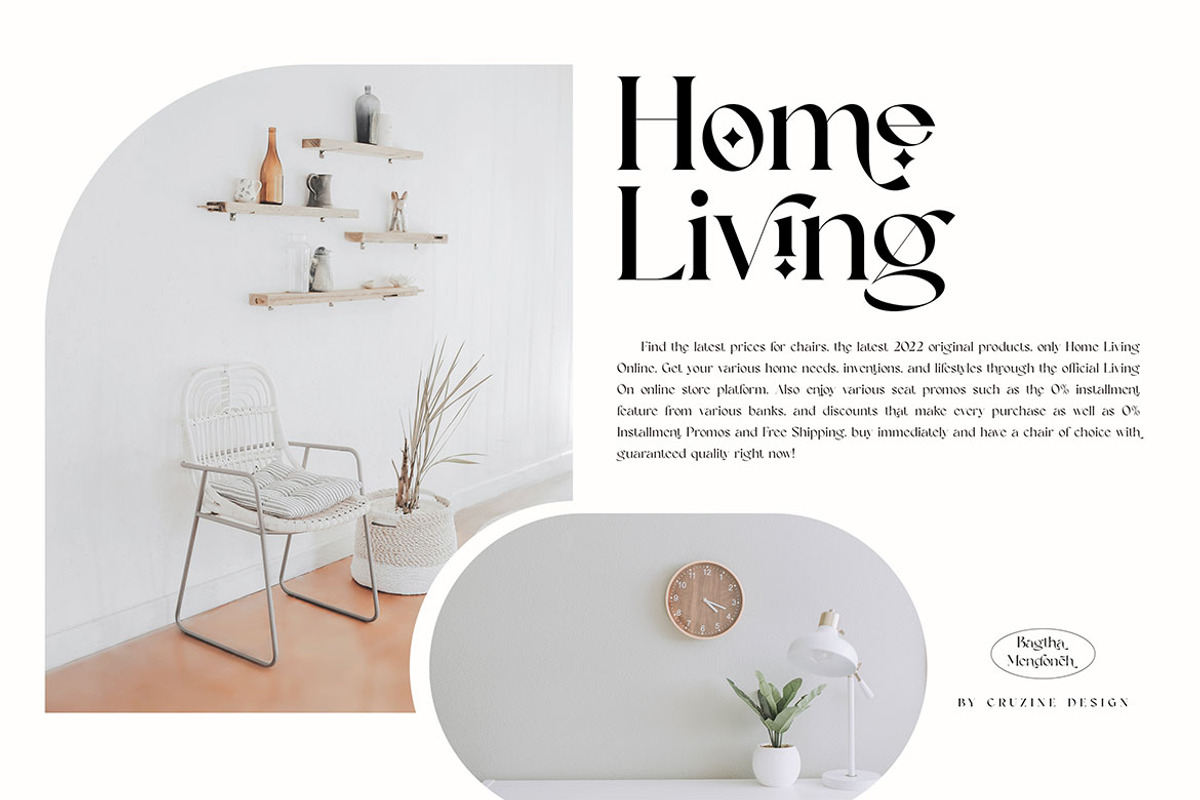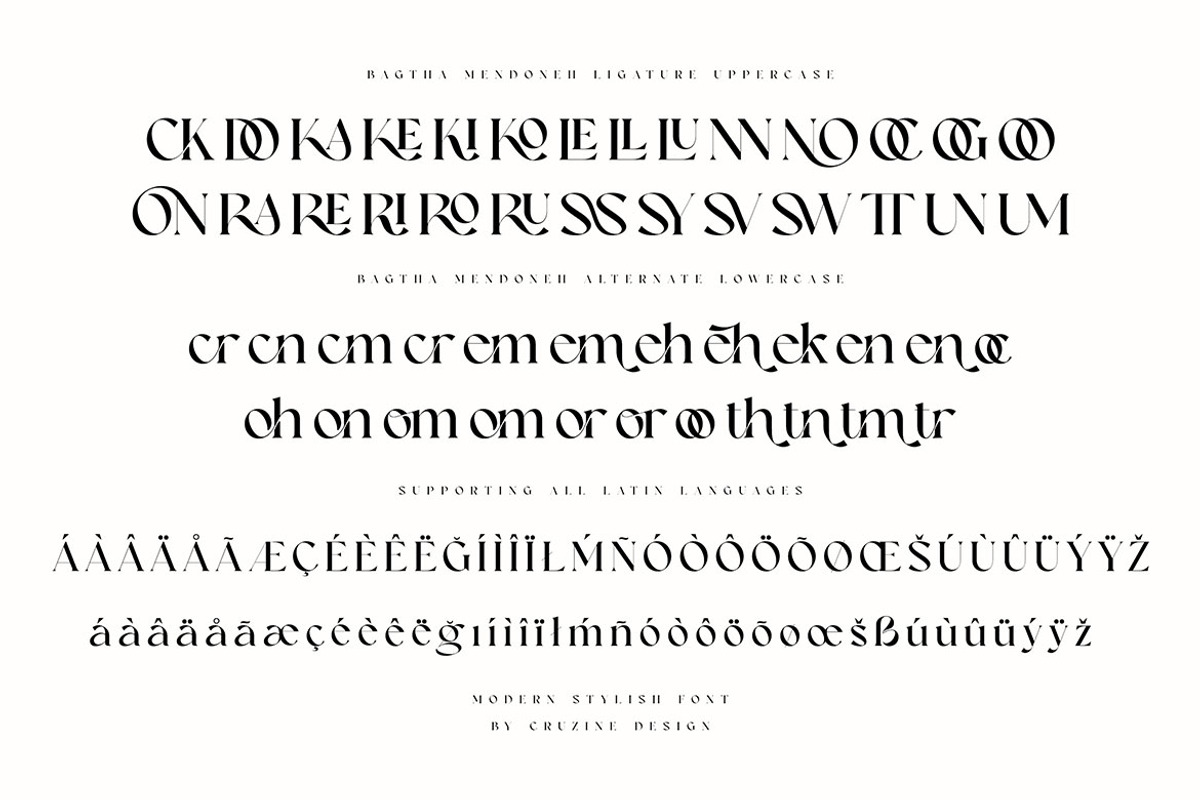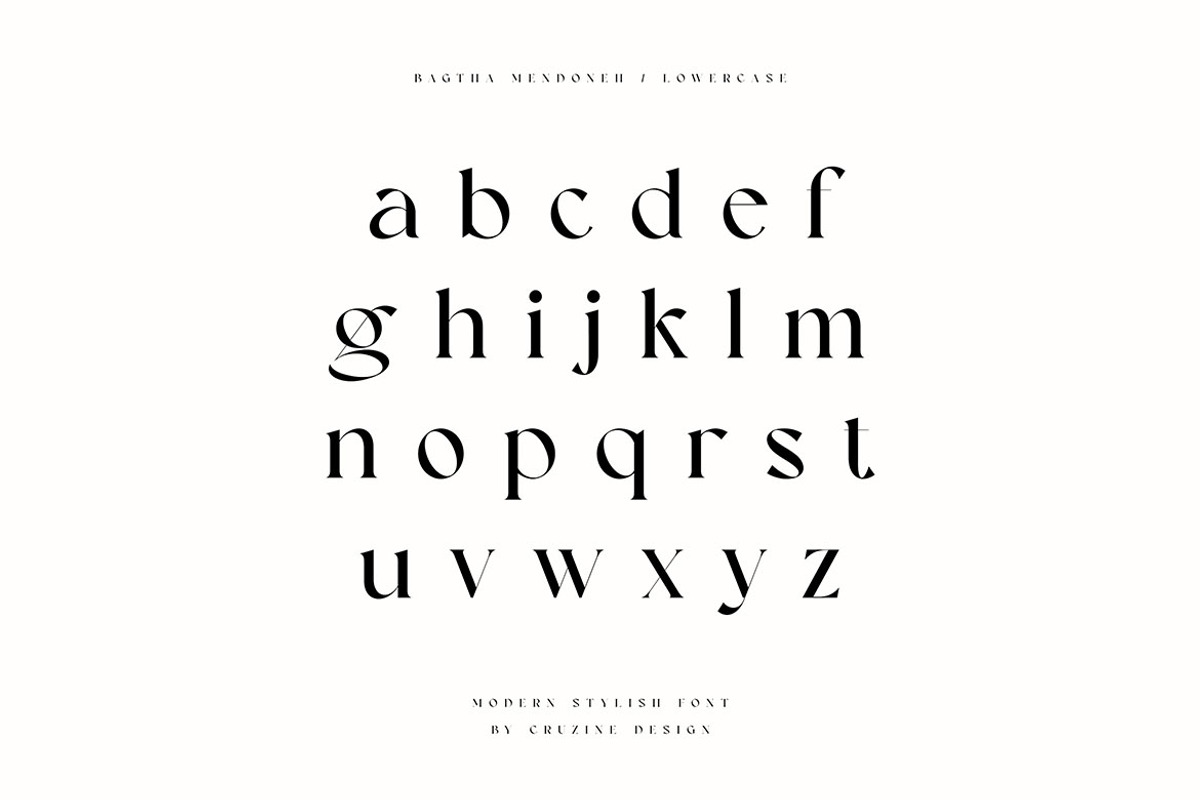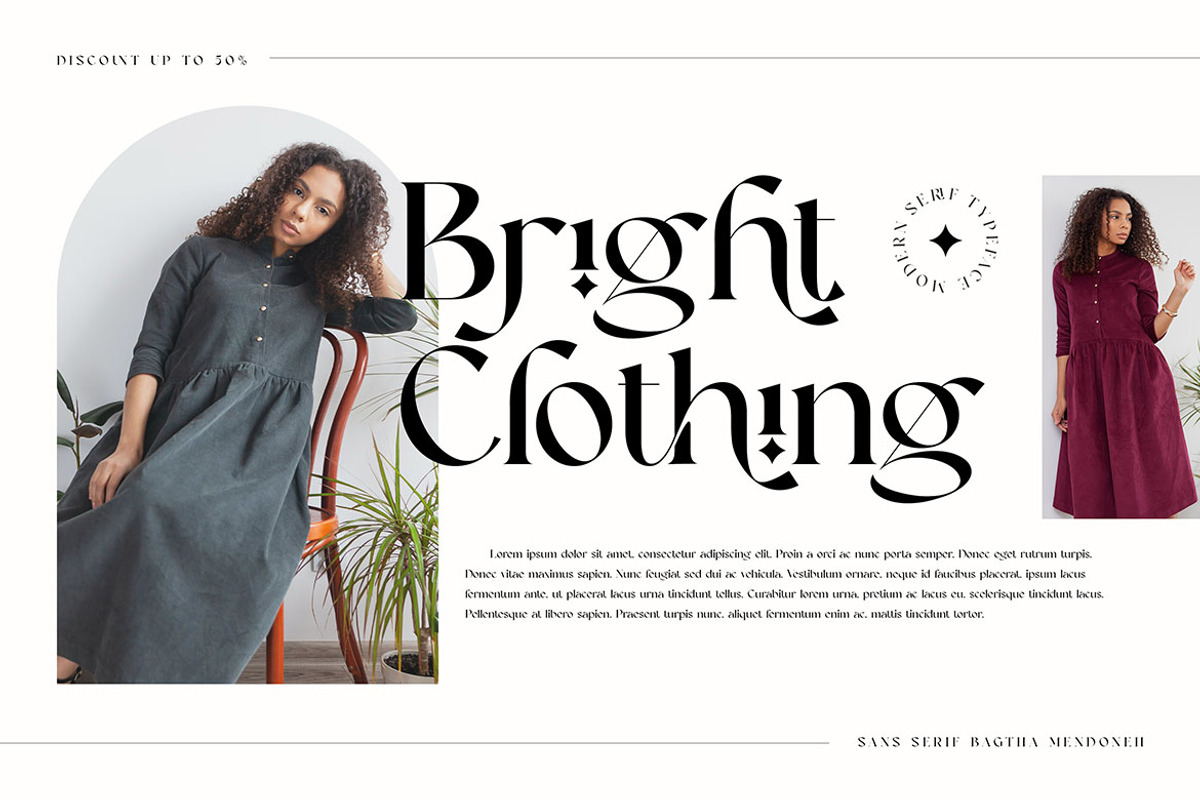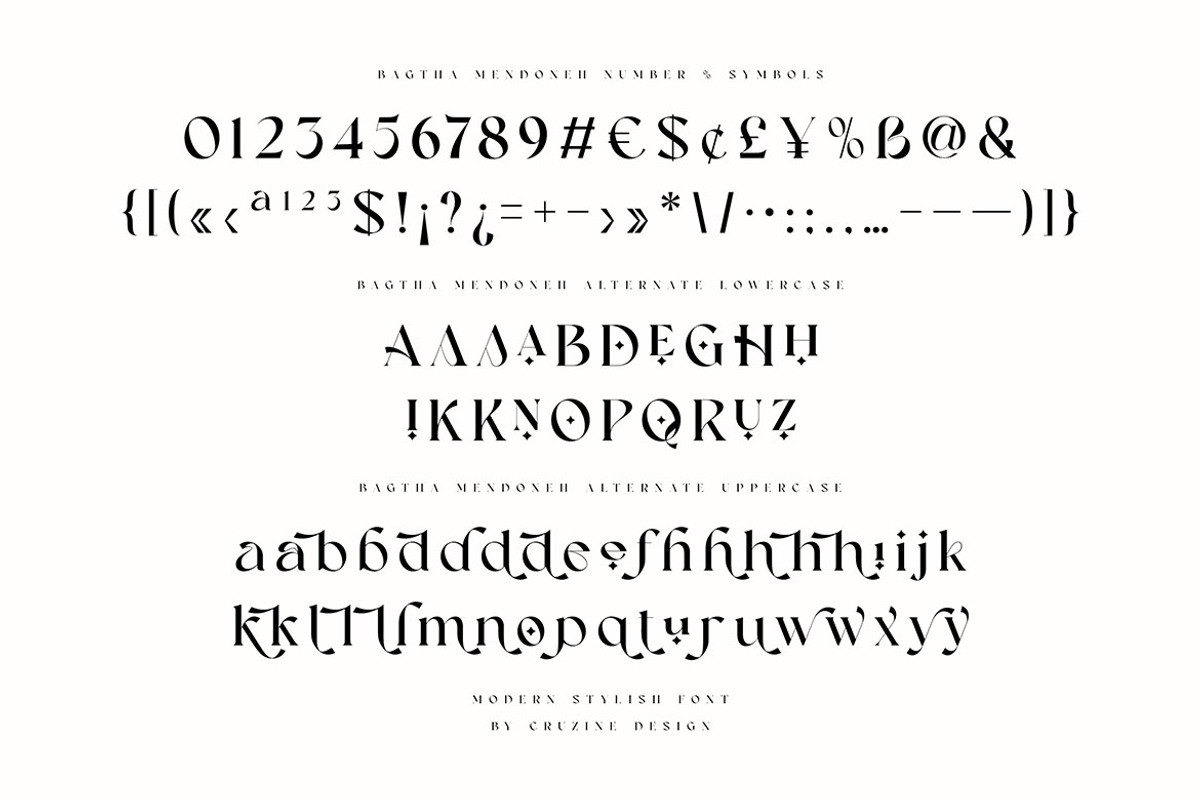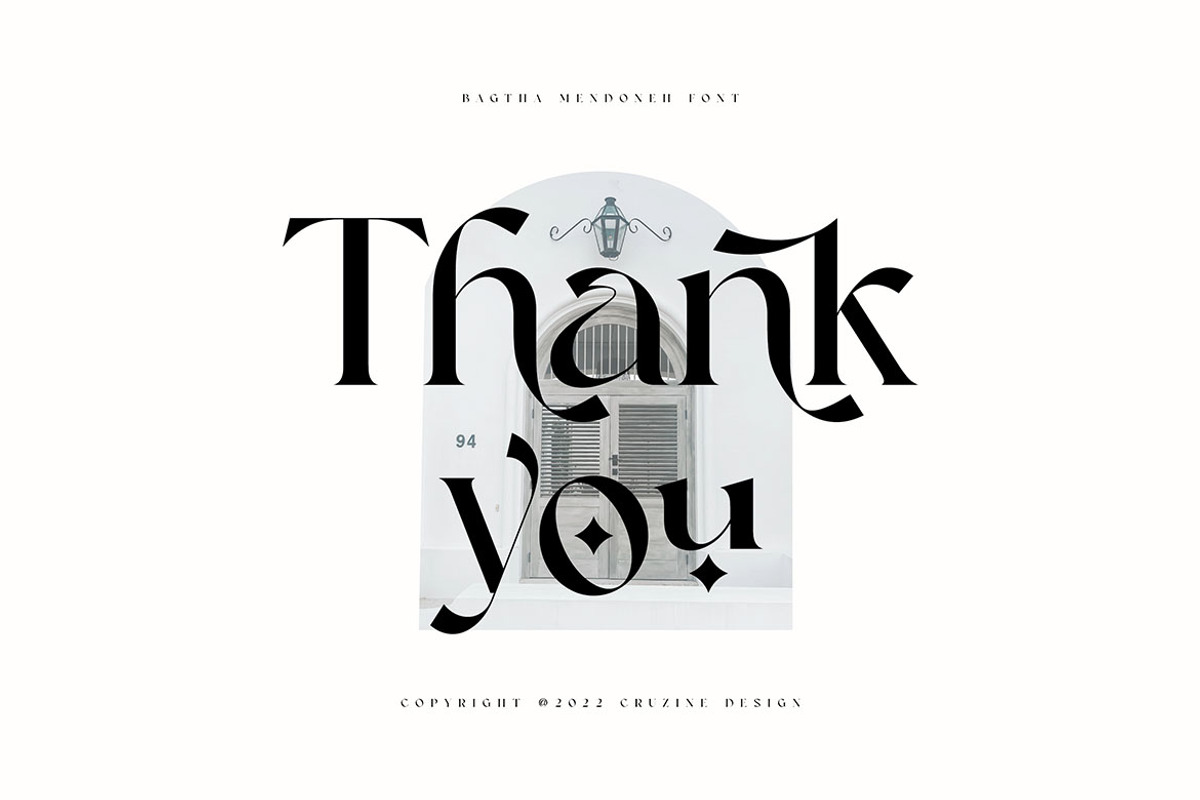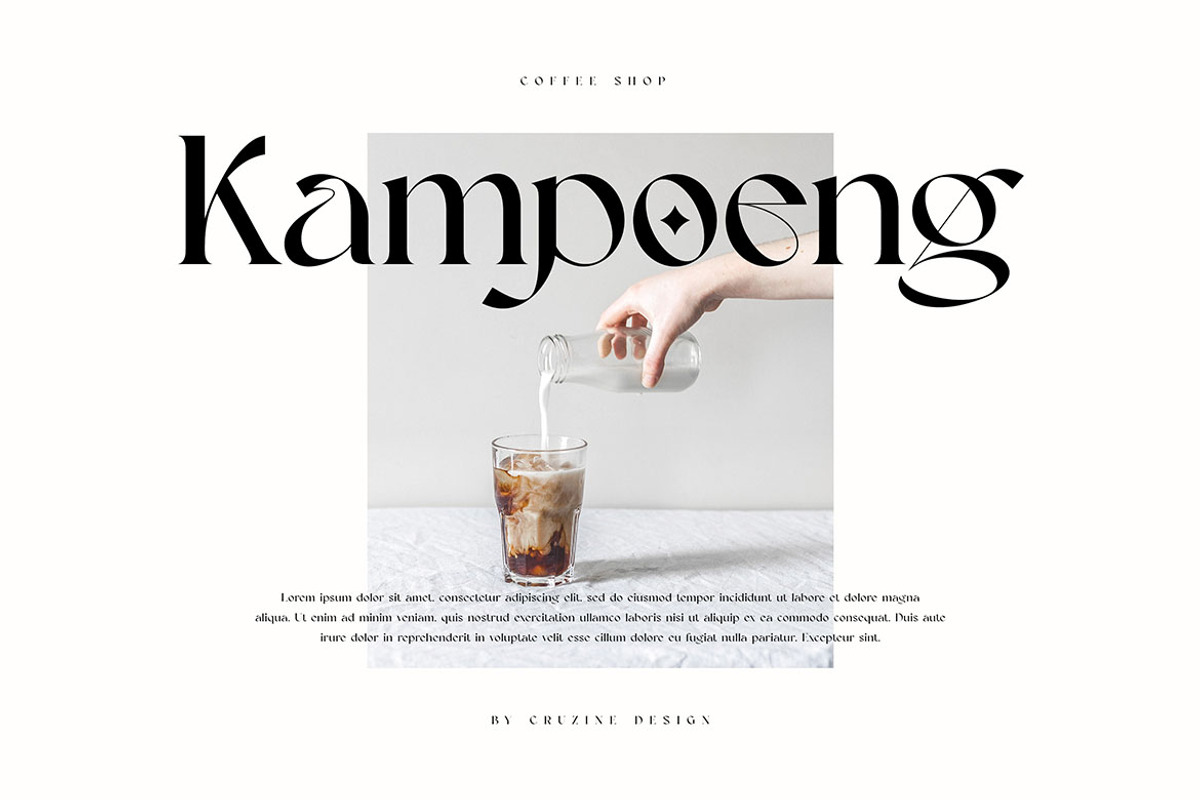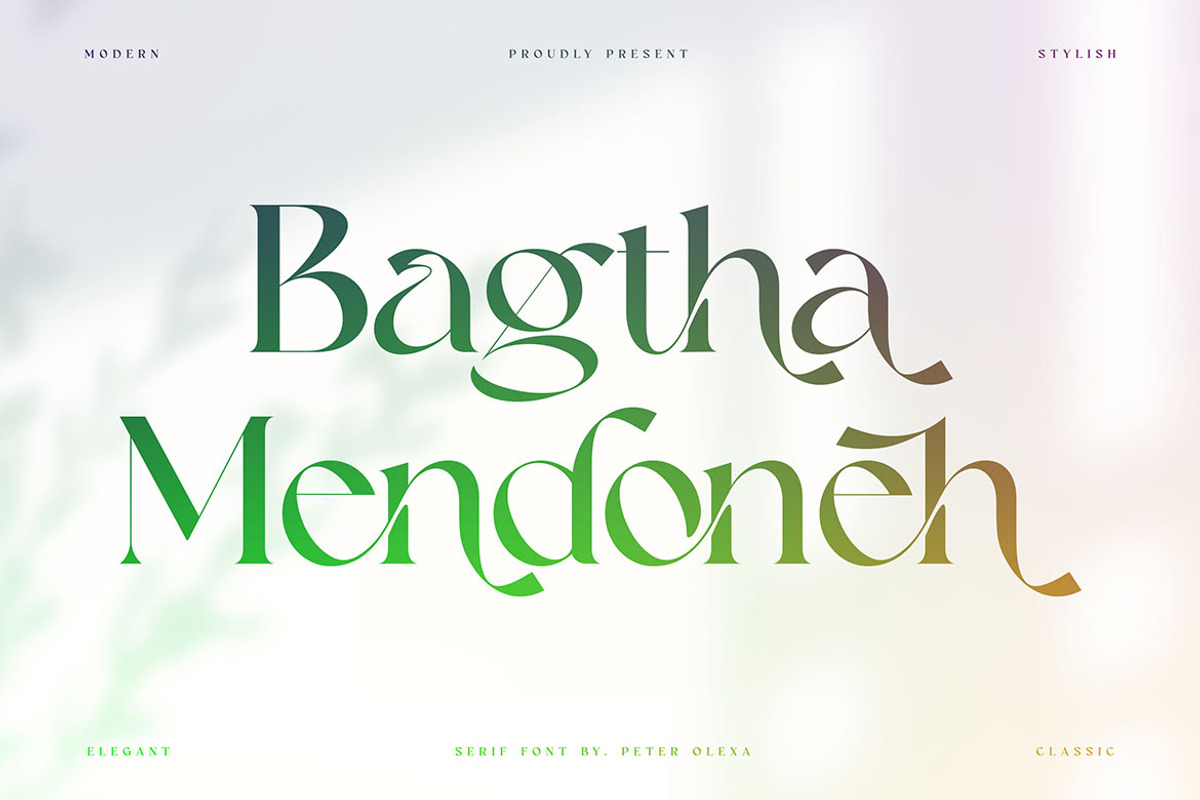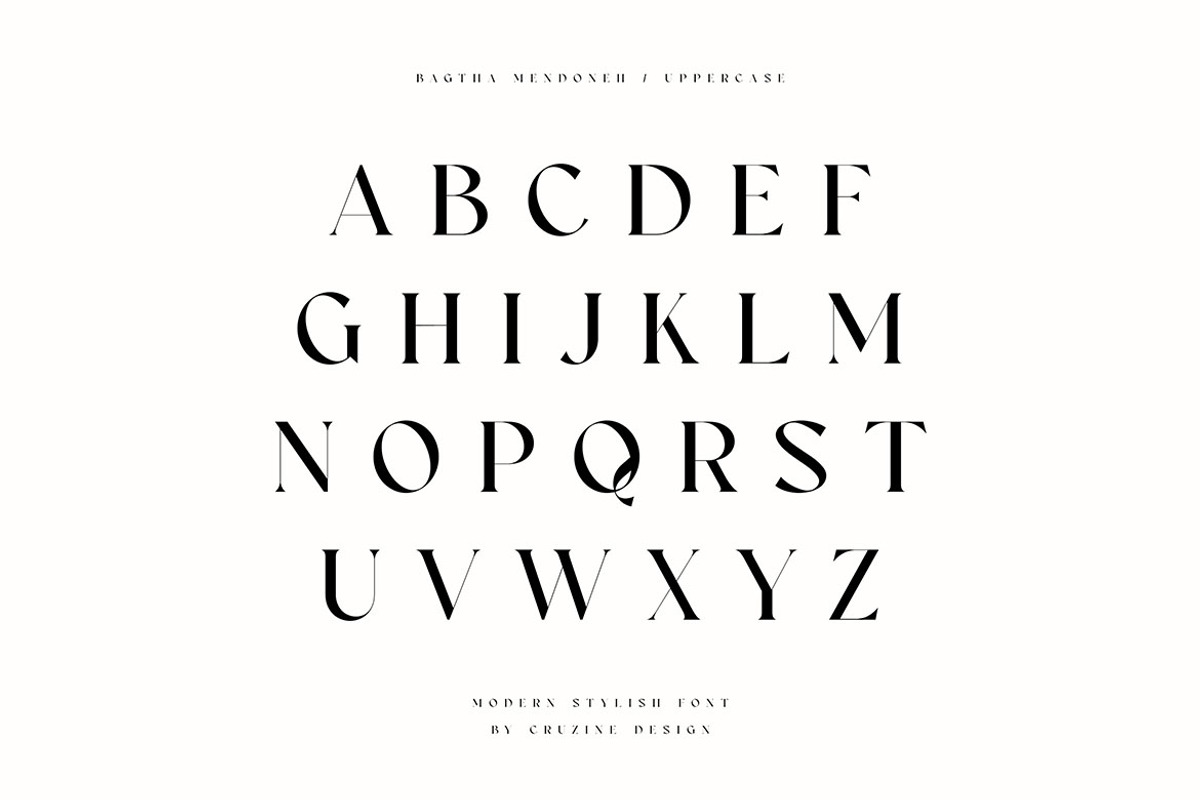
Bagtha Mendoneh Ligature Serif
Trendy, classy & modern style serif font for your fancy projects. Elegant, fashion and classic style on Bagtha Mendoneh font will be great for any branding project. Lot of alternates and ligatures will help you to create unique and original logo design or website header! Enjoy :)
- Lot of alternate characters
- Lot of ligatures
- Great for modern branding projects!